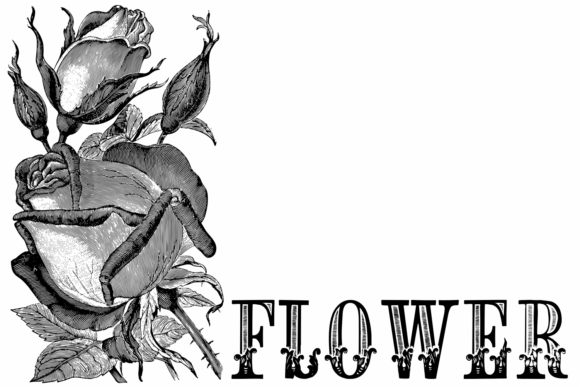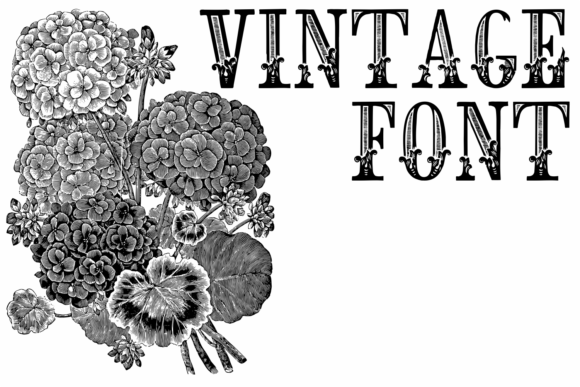
Introduction to Leyenda Font
Do you ever find yourself lost in a sea of design inspiration, desperately searching for that one perfect font to elevate your creative project? For many designers, this is a familiar scenario. It’s the moment when you stumble upon something truly special – a font that transports you to a bygone era, exuding elegance and sophistication. For those in search of a design resource that embodies the essence of vintage charm, we’re thrilled to introduce you to the Leyenda Font.
As a high-quality, free download, the Leyenda Font offers a unique blend of traditional and modern flair, making it an invaluable asset for designers seeking to add a touch of whimsy to their work. Its transparent background and intricate details make it perfect for designers looking to create visually striking designs with a sense of depth and dimension. Whether you’re working on a creative project that requires a dash of nostalgia or simply want to add some visual interest to your designs, the Leyenda Font is sure to be a valuable addition to your design arsenal.
Key Features of Leyenda Font
- Transparent background, making it ideal for use on images and videos with complex backgrounds
- High-resolution font, suitable for use at large sizes and high resolutions (up to 300 DPI)
- Unique, stylish design that can add a touch of elegance to any creative project
- Supports a wide range of languages, making it a versatile design resource for global projects
Honest Review: Leyenda Font
As a designer, I’m always on the lookout for high-quality design resources that can elevate my creative projects. Recently, I had the chance to work with the Leyenda Font, and I must say, it’s been a game-changer.
- ✨ Beautiful, elegant design that adds a touch of sophistication to any project
- ✨ Highly customizable, making it perfect for a variety of creative projects
- ✨ Transparent background option, allowing for seamless integration with other design elements
While the Leyenda Font is an excellent choice, there are a few limitations:
- ⚠️ Limited font styles available, which may not be ideal for designers who need a wide range of options
- ⚠️ Not suitable for use in very small font sizes, as the design may become distorted
Overall, I’m thoroughly impressed with the Leyenda Font. Its high quality and elegant design make it an excellent addition to any designer’s toolkit. While there are some limitations, I believe the benefits far outweigh the drawbacks. I highly recommend giving it a try for your next creative project!
Leyenda Font
Leyenda Font is a high-quality design resource perfect for creative projects that require a unique and elegant touch. With its transparent background, it’s easy to incorporate into various design applications.
Tips for Getting the Most Out of Leyenda Font
To get the most out of Leyenda Font, consider the following tips:
- Experiment with different font sizes and styles to achieve the desired look.
- Combine Leyenda Font with other design elements, such as images and graphics, to create a visually appealing design.
- Use Leyenda Font consistently throughout your design to create a cohesive look.
Leyenda Font is commonly used in:
- Business cards and marketing materials.
- Wedding websites and social media graphics.